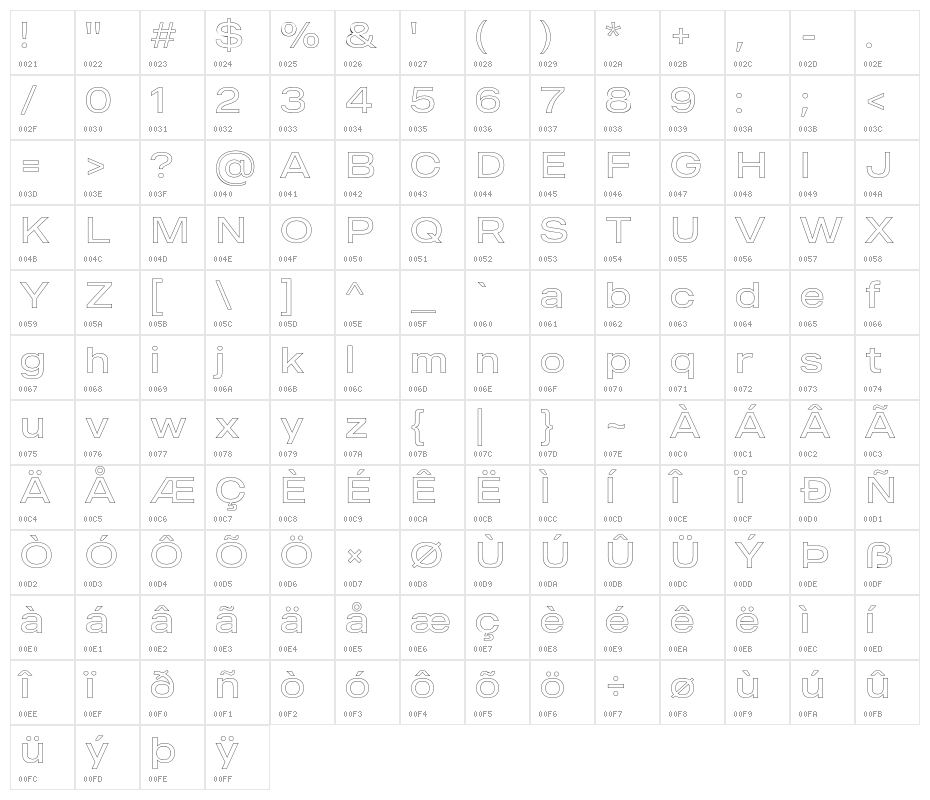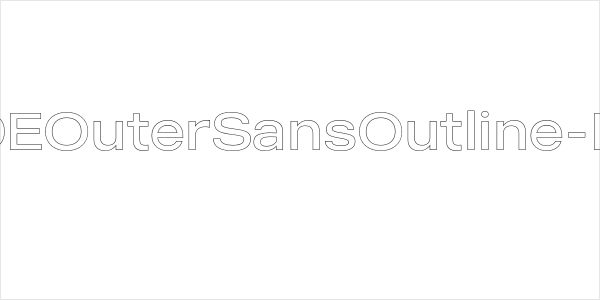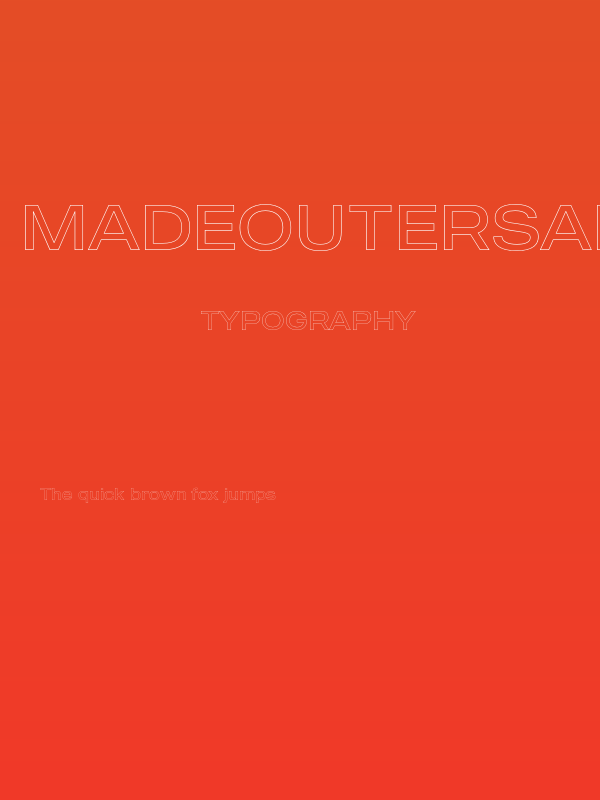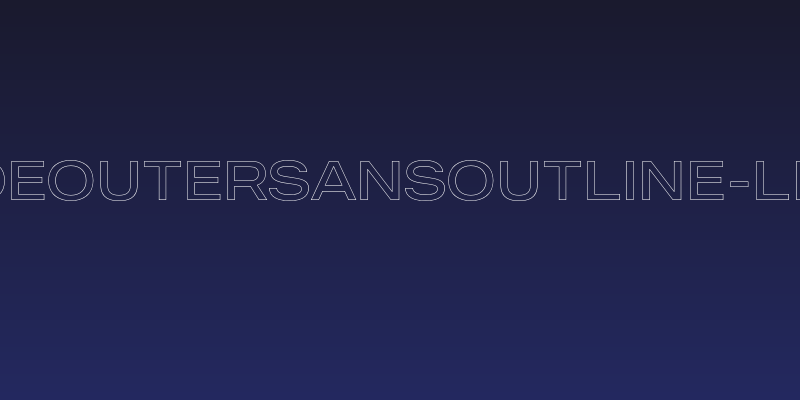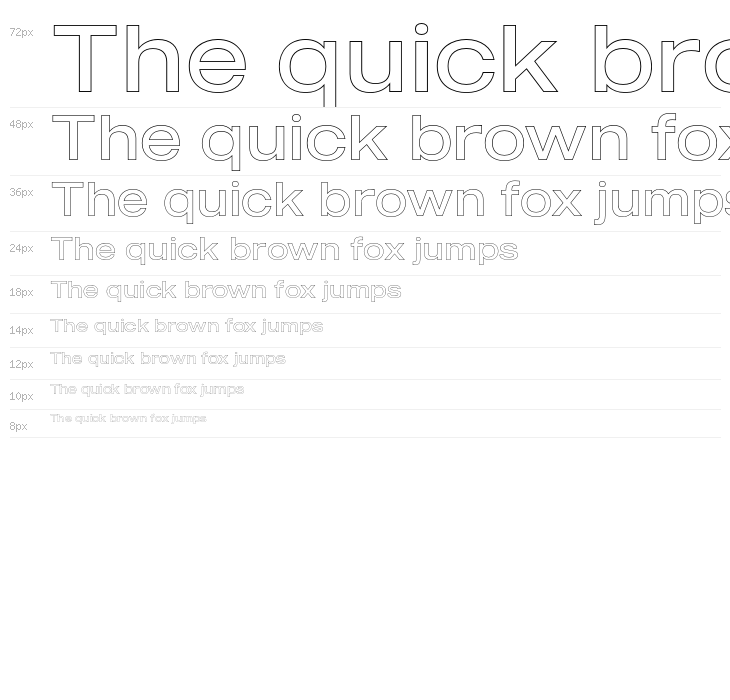
MADEOuterSansOutline-Light Font
MADEOuterSansOutline-Light Description
This font features a clean, geometric sans-serif style with an outline design that gives it a modern and airy appearance. The characters are evenly spaced with a consistent line thickness, creating a balanced and harmonious look. The uppercase and lowercase letters maintain a uniform height, contributing to its sleek and contemporary feel. The numerals and special characters are designed with the same precision, ensuring readability and versatility across various applications. Its minimalist outline design makes it suitable for projects that require a subtle yet impactful typographic presence.